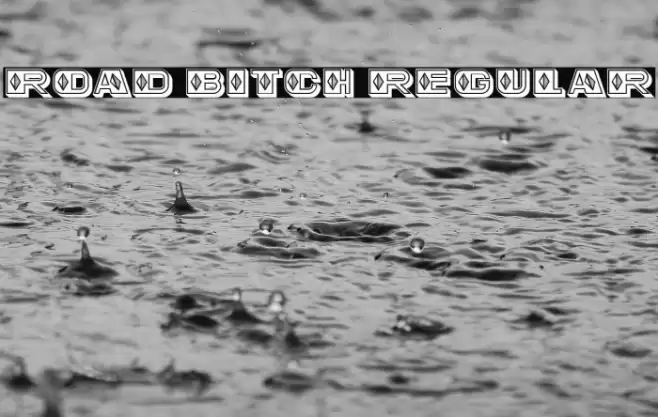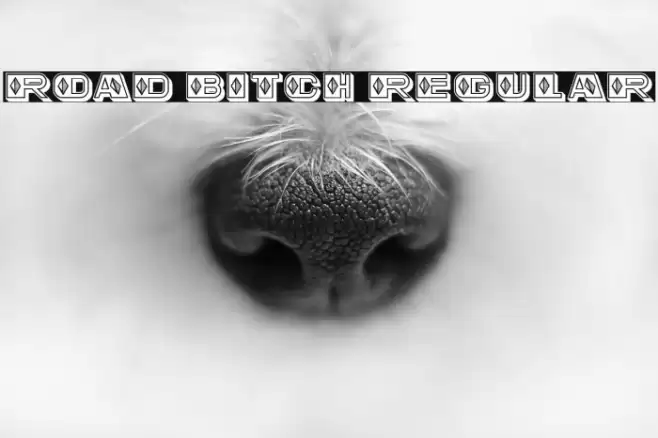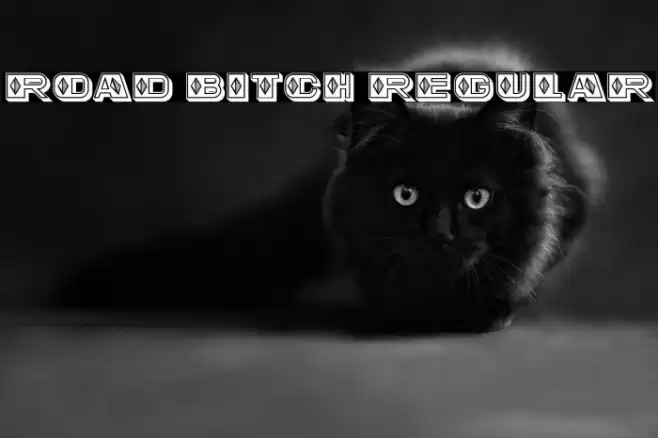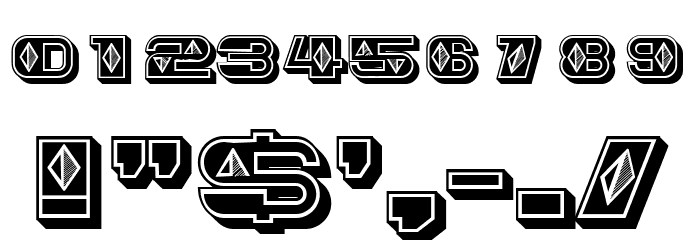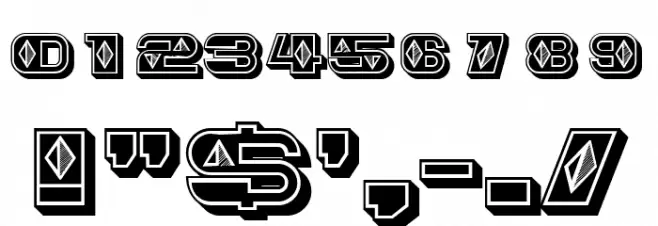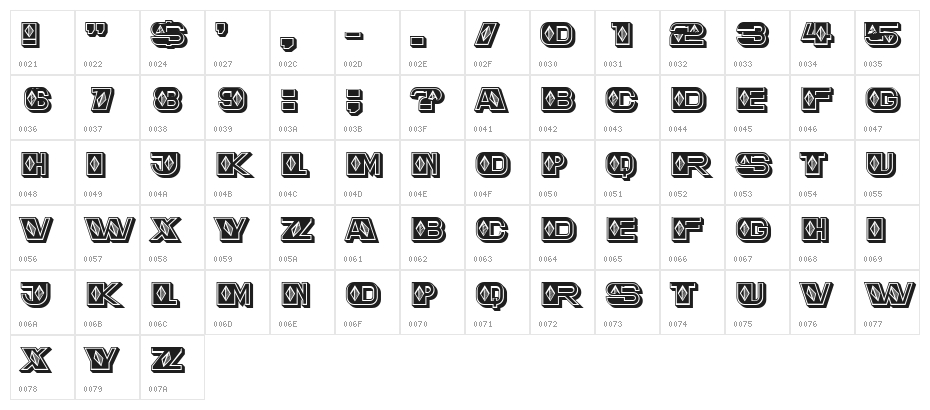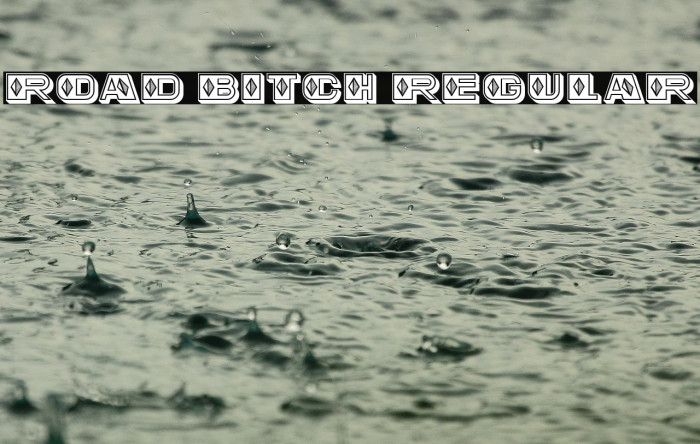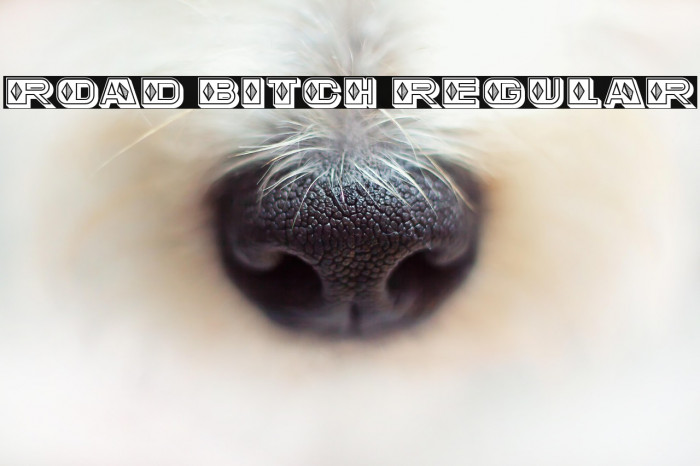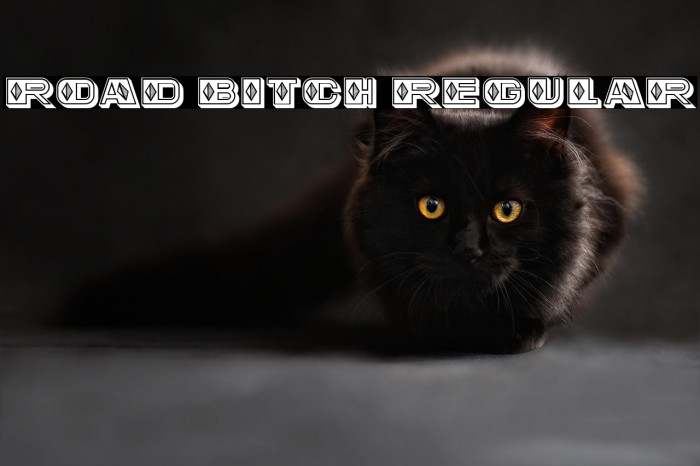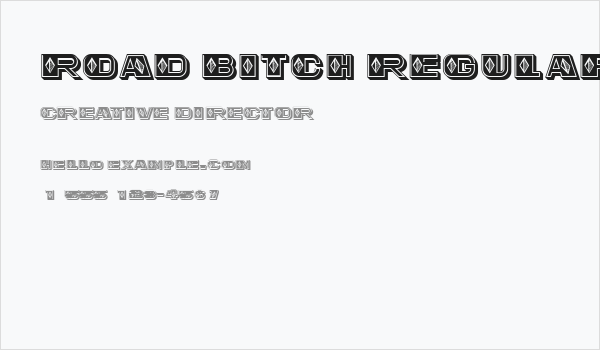
Road Bitch Regular Font
Road Bitch Regular Description
This font features a bold and striking design with a unique geometric pattern inside each character. The letters are outlined with a thick black border, giving them a three-dimensional appearance. The interior of each character is filled with intricate diamond shapes, adding a decorative and modern touch. This font is highly stylized, making it stand out in any design project. The characters are evenly spaced, ensuring readability while maintaining their artistic flair. The combination of bold outlines and detailed interiors makes it suitable for eye-catching headlines and creative displays.
A bold, geometric font with intricate diamond patterns inside each character from Uncategorized fonts.
- Proposed Projects: Ideal for posters, album covers, branding materials, and any project requiring a bold, artistic statement.